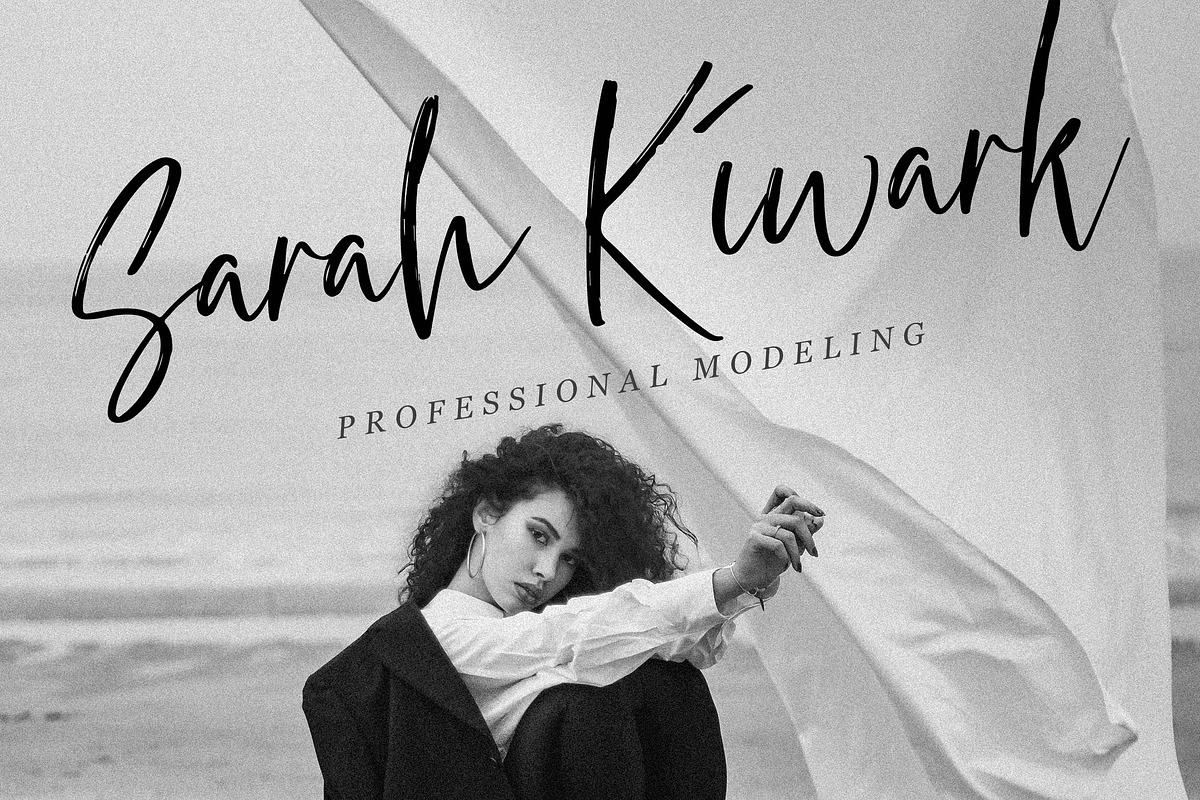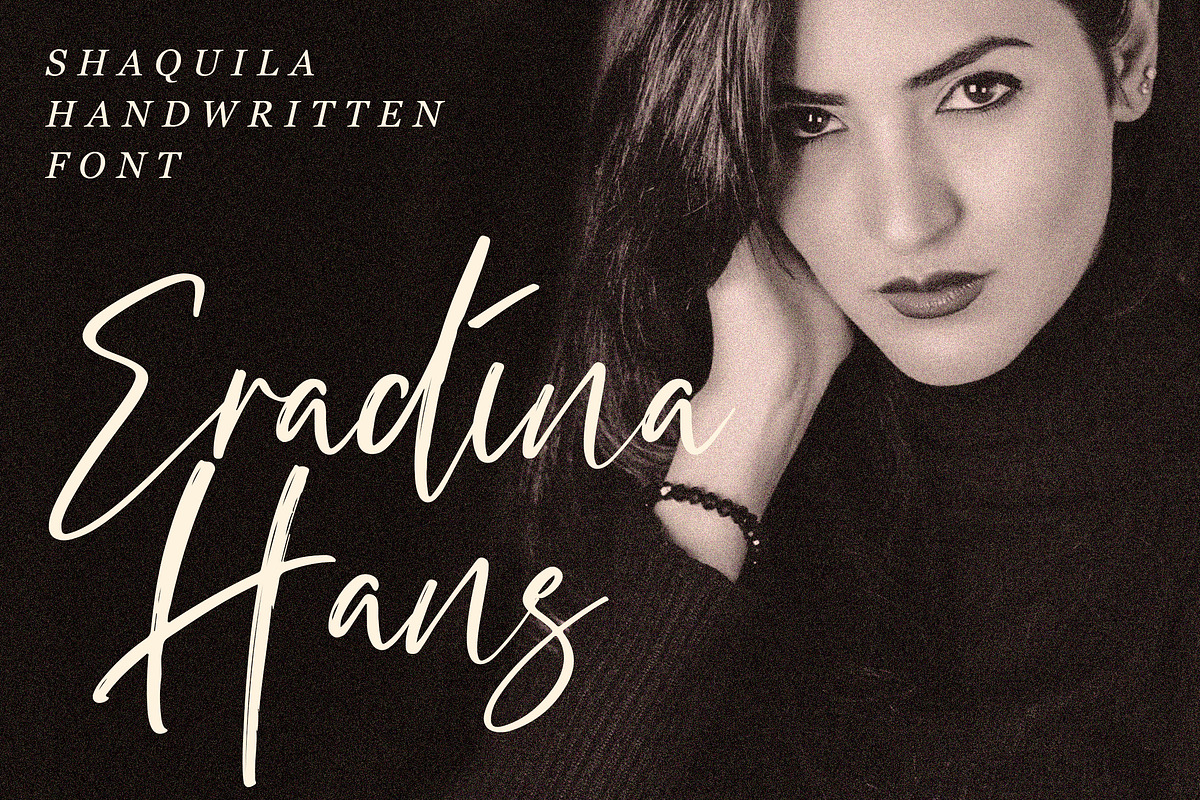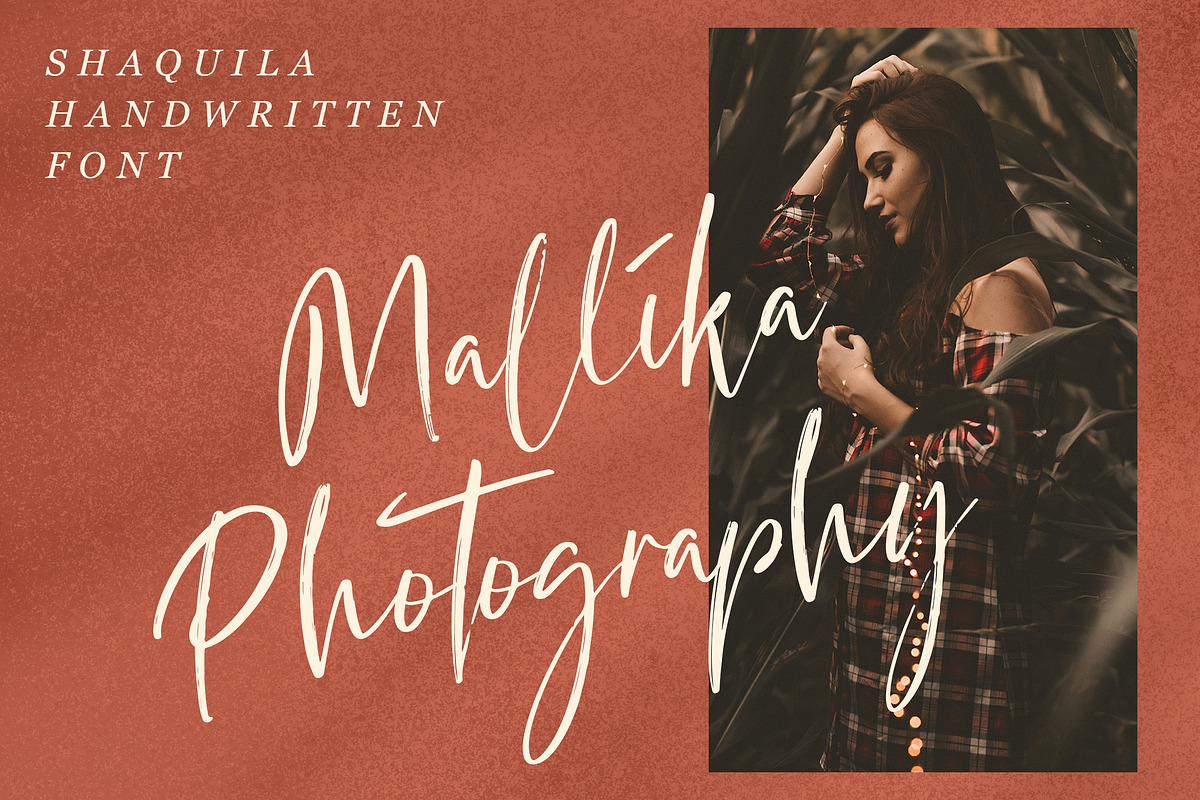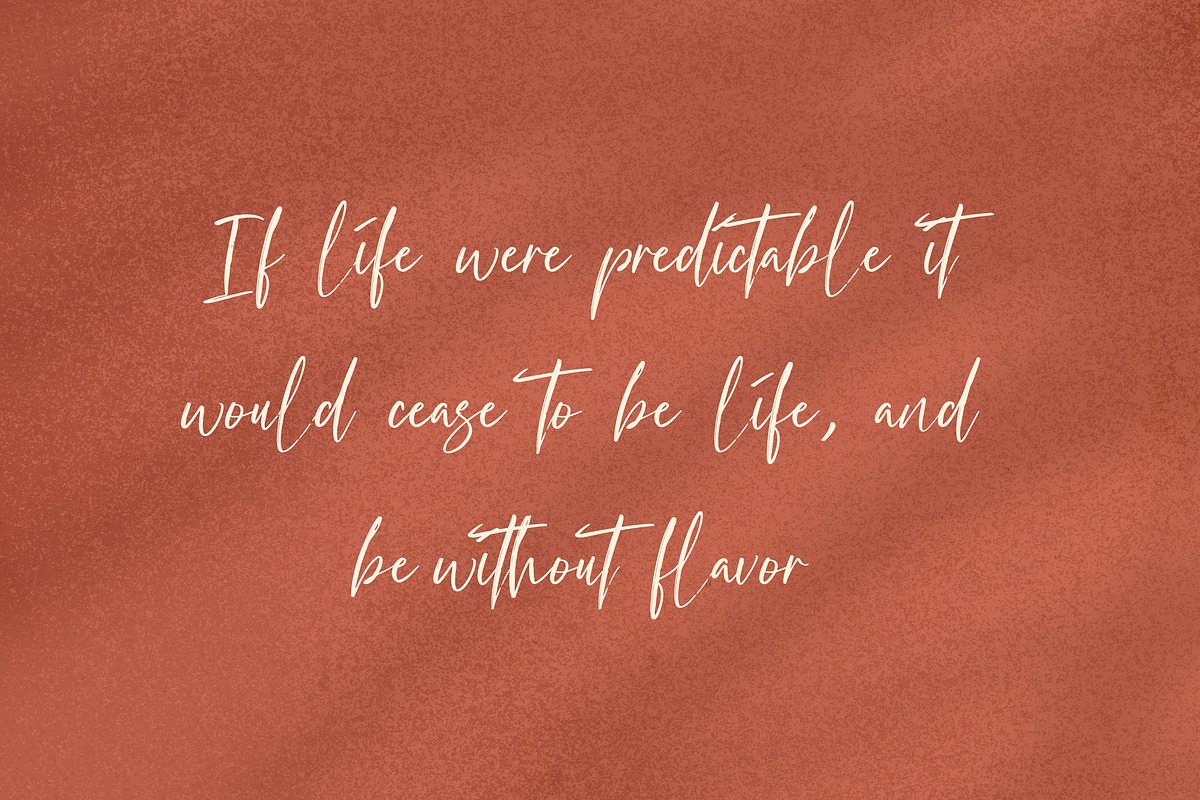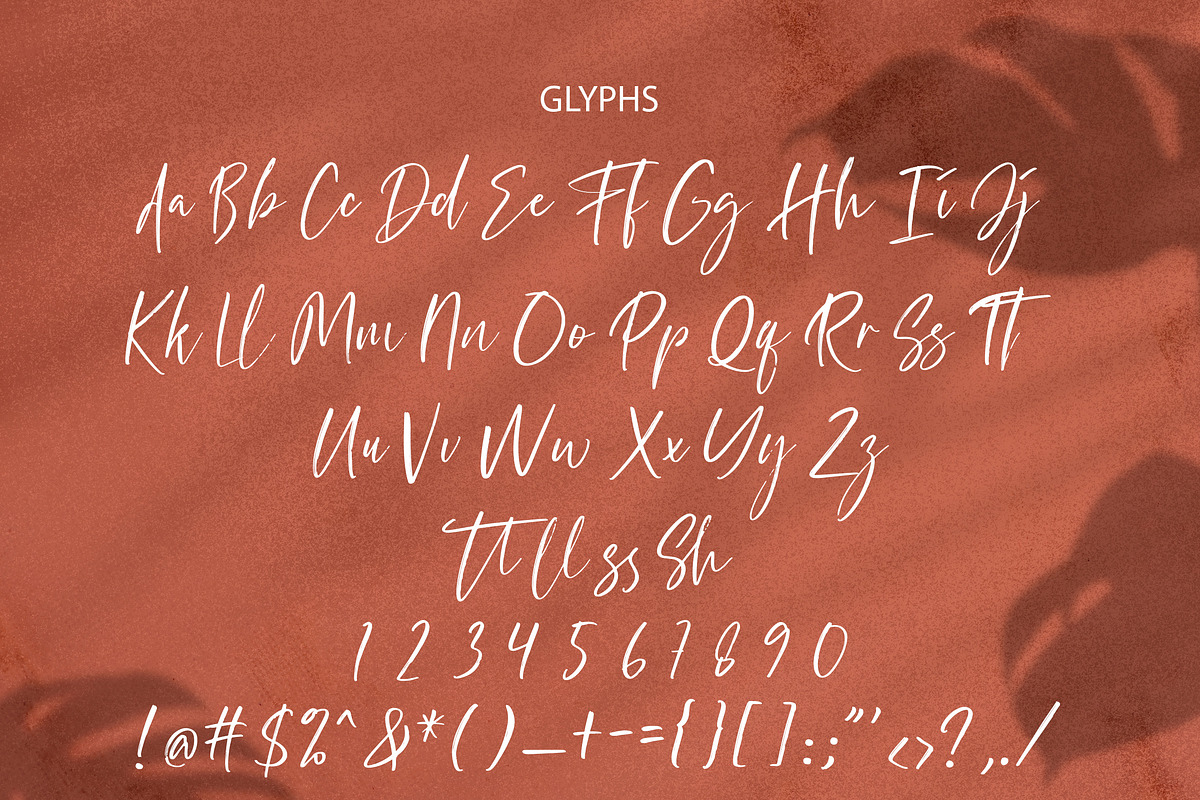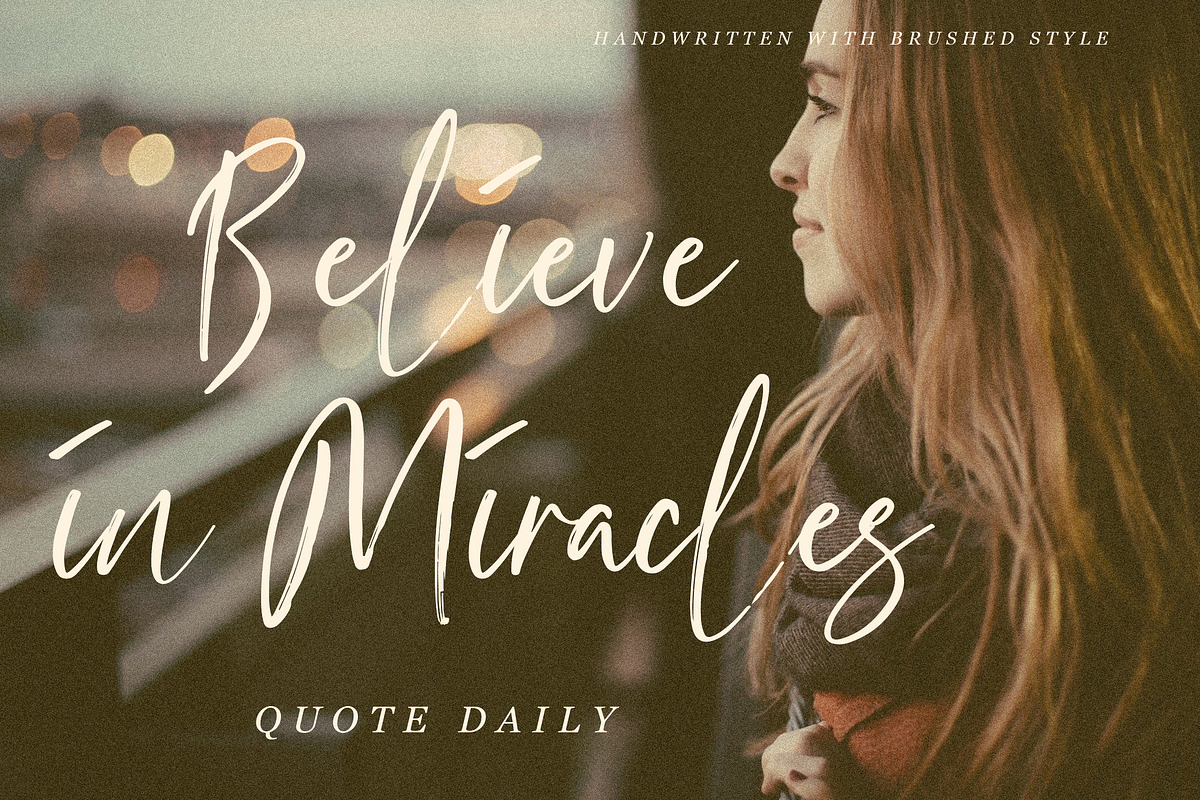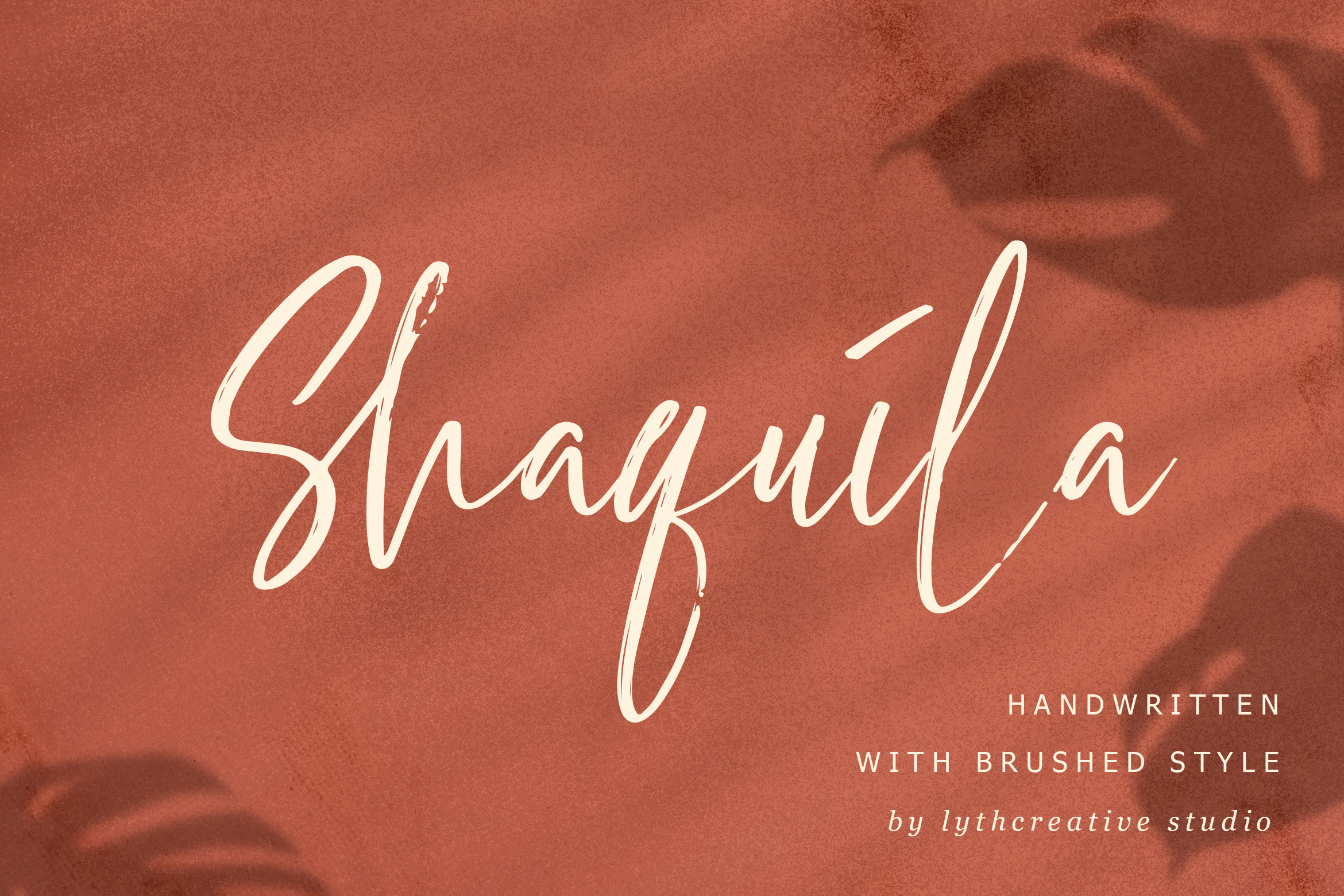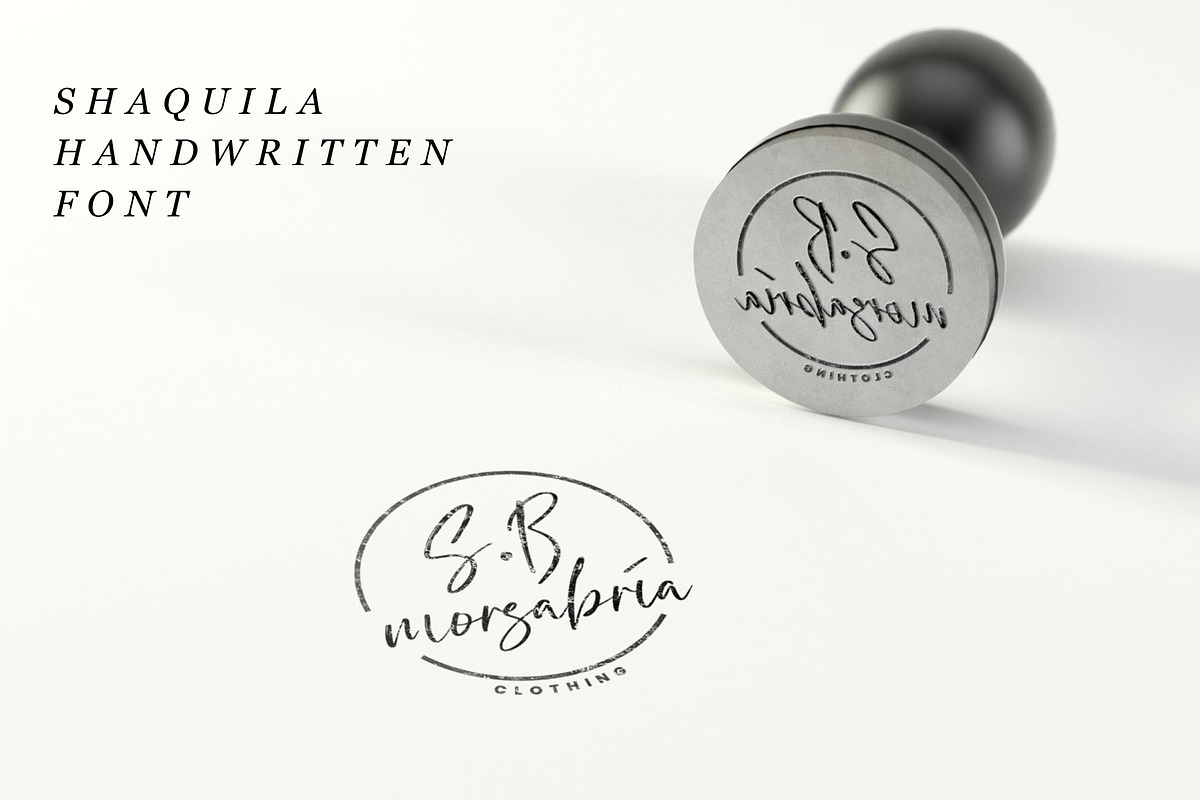
Shaquila Handwritten Font
Shaquila is a beautiful handwritten font. Fall in love with its incredibly versatile style and use it to create spectacular designs!
Shaquila can be used for various purposes such as logos, wedding invitations, t-shirts, letterheads, signage’s, labels, and much more!